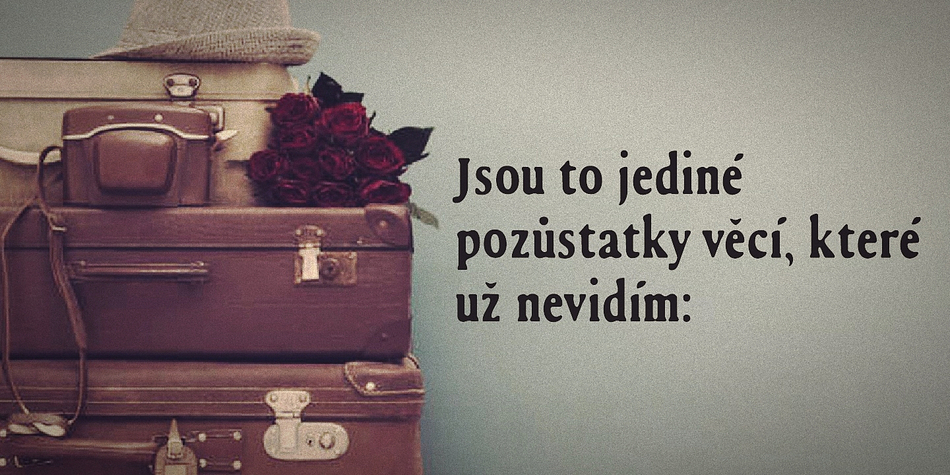
Kula
Designed by Mubarak Minhas, Kula is a serif and display serif font family. This typeface has four styles and was published by Jadugar Design Studio.
Introducing **Kula**, the font that brings a playful twist to your creative projects! Designed with boldness and flair, Kula is here to elevate your designs with its delightful variety—choose from three eye-catching variations: **Outline**, **Shadow**, and **Blur**. Whether you’re crafting a vibrant poster, a striking heading, or a captivating title, Kula’s versatile styles provide endless possibilities for your textual artistry.
What sets Kula apart are its unique curves complemented by a charming slab look, making it not just a font but a character in your design story. Every nuance and groove has been crafted with care, ensuring that each letter feels special and tailored for your creative needs.
Incorporating Kula into your projects guarantees a visually pleasing experience that will draw the attention of your audience and leave them eager for more. So, unleash your imagination and let Kula’s bold personality shine in your next design endeavor. I can’t wait to see how you bring it to life!